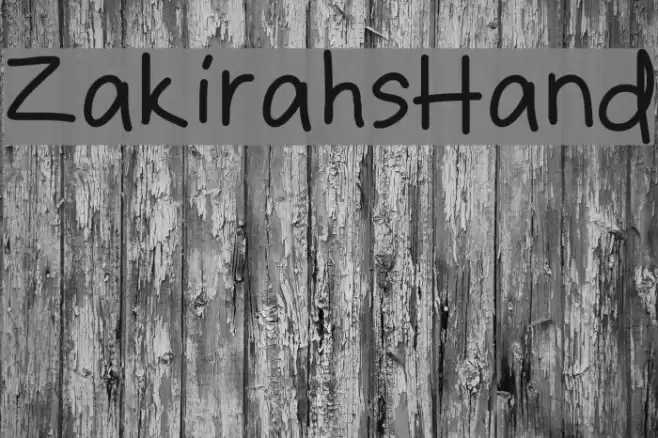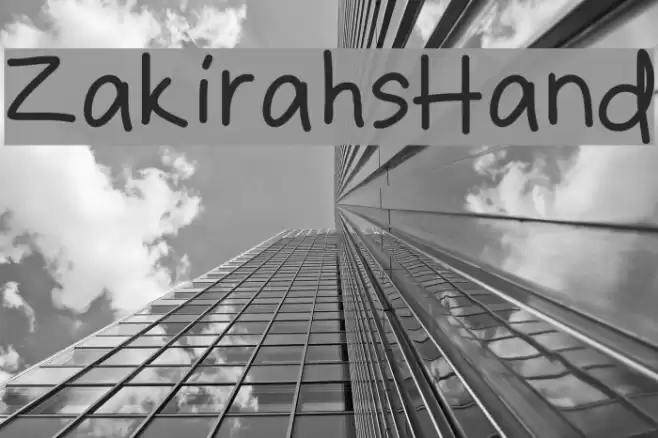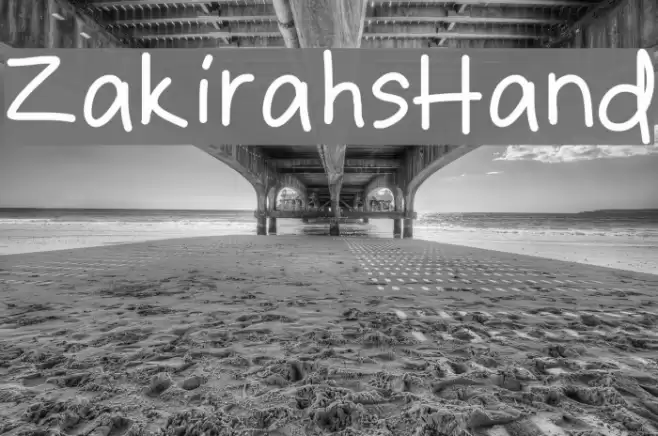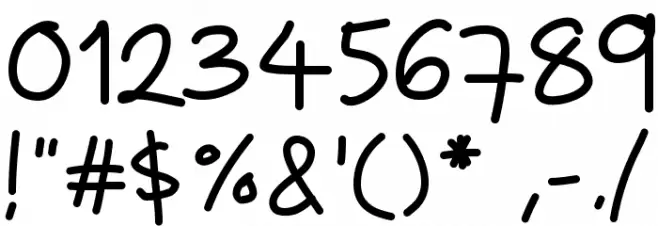
ZakirahsHand Font
ZakirahsHand Description
This font exudes a playful and casual handwritten style, characterized by its rounded and slightly irregular letterforms. Each character appears as though it has been carefully drawn with a marker, giving it a personal and approachable feel. The uppercase and lowercase letters maintain a consistent flow, with a slight tilt that adds to the informal aesthetic. The numerals and special characters are crafted with the same attention to detail, ensuring a cohesive look across all elements. This font's charm lies in its ability to convey warmth and friendliness, making it ideal for projects that require a human touch.
A playful, casual handwritten font with rounded, marker-like strokes from Handwritten fonts.
- Proposed Projects: Ideal for greeting cards, children's books, personal blogs, and informal branding.
- Overall Style: Casual
- Use Case: Headlines, Informal text, Personal projects